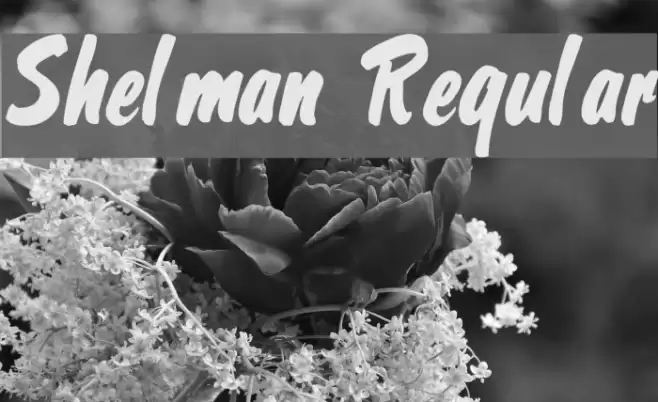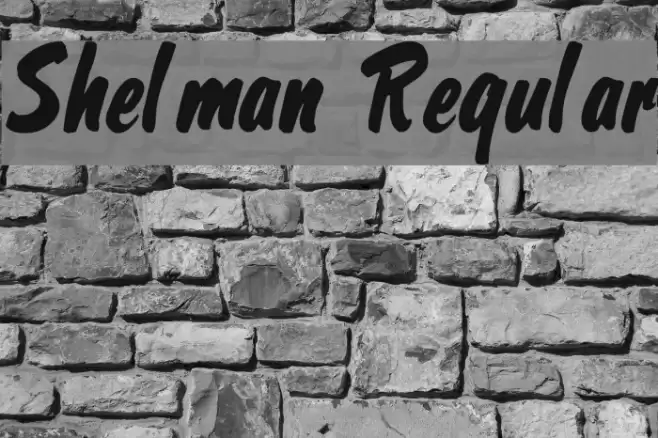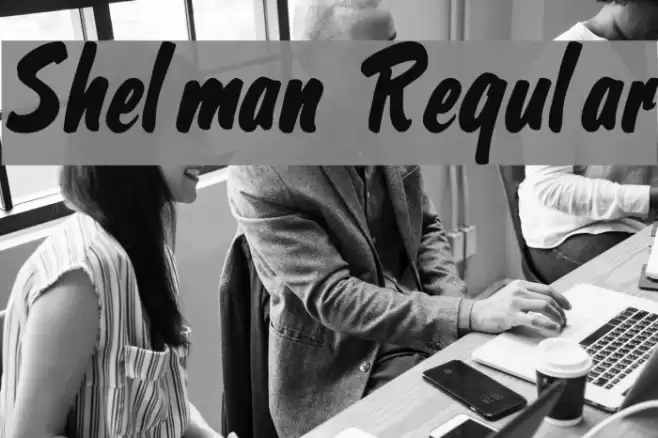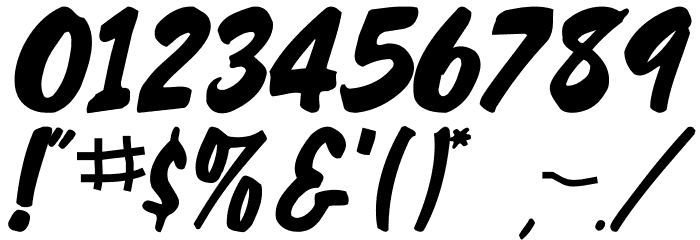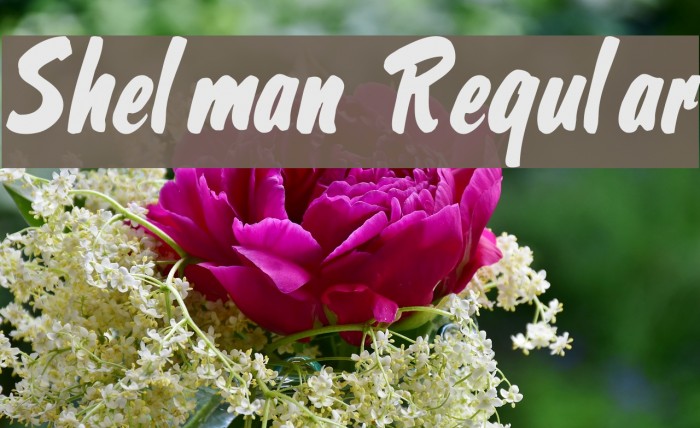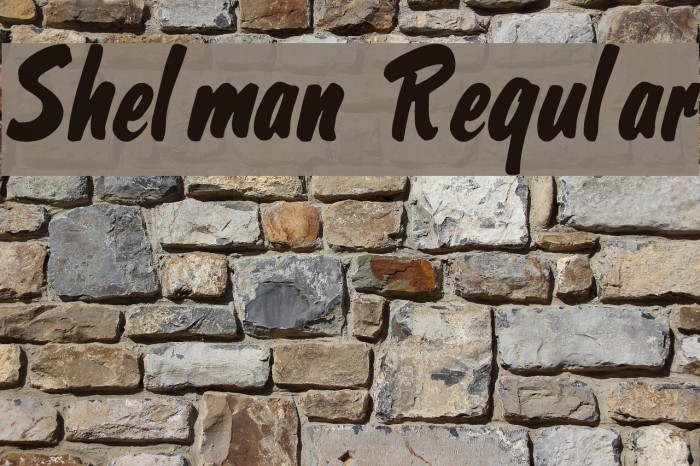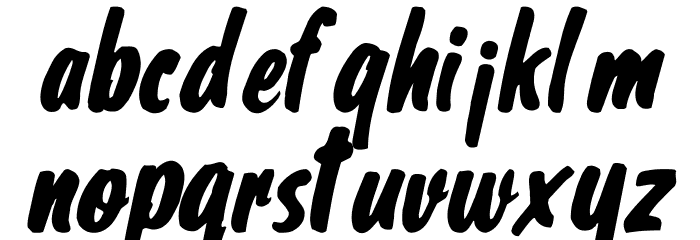
Shelman Regular Font
Shelman Regular Description
This font exhibits a bold and dynamic script style, characterized by its thick, flowing strokes and energetic presence. The letters are slightly slanted, giving a sense of motion and fluidity. The uppercase and lowercase characters maintain a consistent style, with rounded edges and a hand-drawn appearance. The numerals and special characters follow the same aesthetic, ensuring uniformity across all glyphs. This font's boldness makes it stand out, while its script nature adds a touch of elegance and informality.
A bold, dynamic script font with flowing, hand-drawn strokes.
- Proposed Projects: Ideal for branding, posters, and invitations where a bold, personal touch is desired.